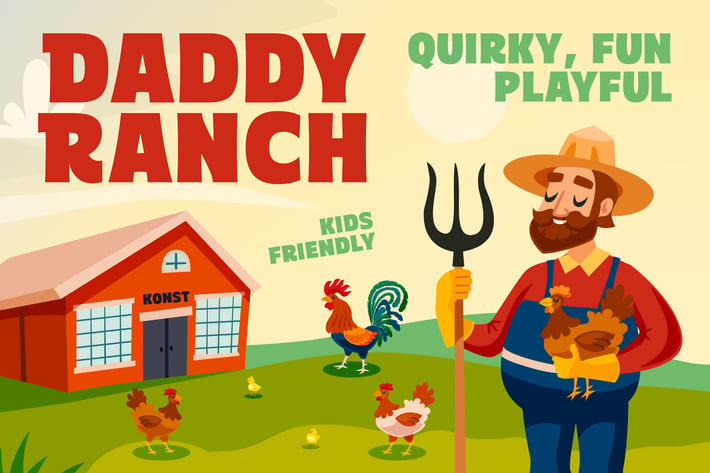
Daddy Ranch - Kids Fun Fonts
Experience the playful moment in the grandpa's ranch with Daddy Ranch. Quirky fun and kids friendly fonts.
Perfectly fit for your kid's theme visual, storybook, children's apparel, games, toys, anytime you need to be fun instantly.